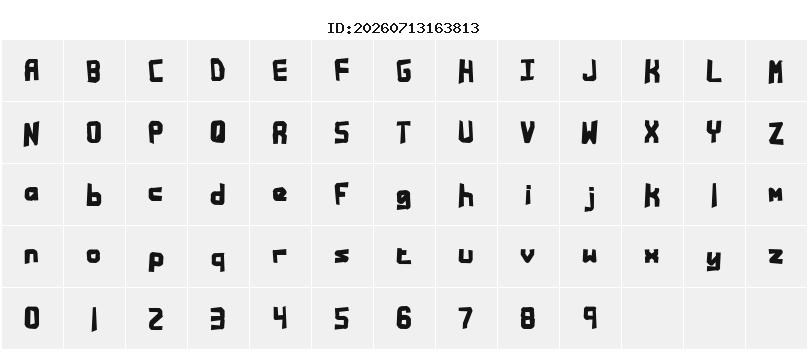
About Bandwidth Bandmess (BRK).ttf
Bandwidth Bandmess (BRK).ttf is a modern, elegant sans-serif font designed for ultimate readability and visual harmony. Perfect for branding, headlines, web design, and print materials.